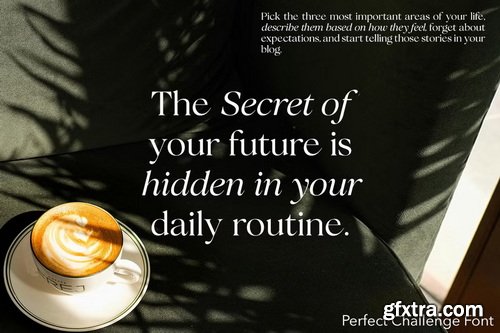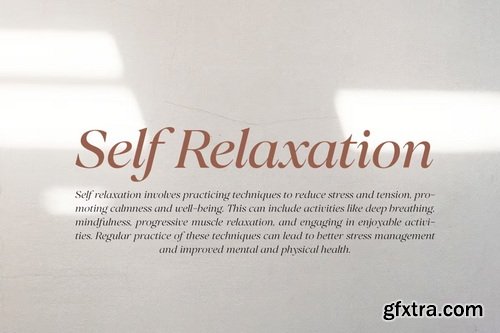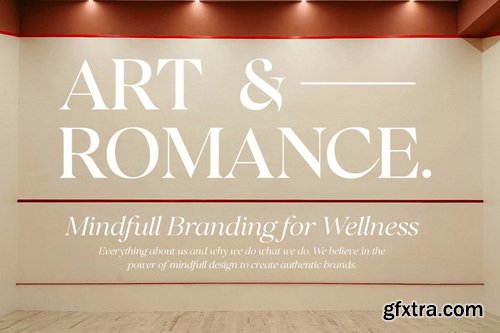
CreativeMarket - Perfect Challenge Serif Family
- Perfect Challenge Serif is a refined, high-end typeface that exudes sophistication and timeless elegance. Blending smooth, flowing curves with sharp, deliberate strokes, it strikes the perfect balance between classic luxury and modern prestige. Every letterform is meticulously crafted to convey grace, confidence, and exclusivity.
- Whether used in uppercase for bold impact or in elegant scripts for delicate detaPerfect Challenge Serif is designed to elevate any visual experience. Its elegant flair and luxurious aura make it a standout choice for upscale branding and premium designs.